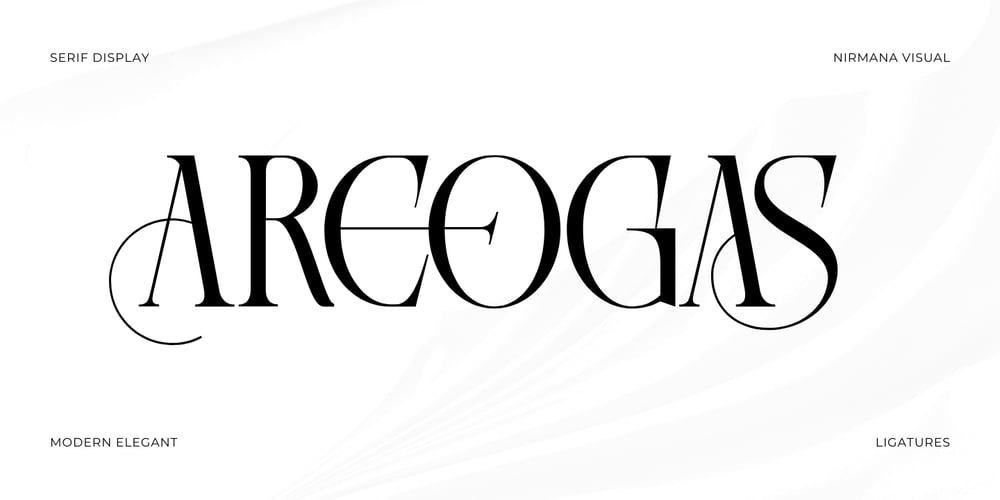
Areogas Vintage Font Family was designed by Sigit Dwipa and published by Nirmana Visual. Areogas Vintage contains 1 styles and family package options. Aerogas Vintage, characterized by the small lines or strokes attached to the end of larger strokes in letters, are a timeless choice for designers seeking elegance and readability. The classic appeal of serif fonts makes them perfect for a wide range of projects, from print to digital.